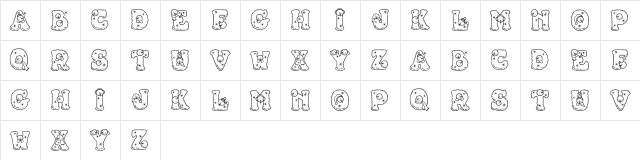
Snowpersons Regular
| Designer | Character, based on an alphabet from coloringbookfun.com |
Design Context for Snowpersons Typeface
Snowpersons is a composed and adaptable typeface that performs quietly and consistently across a wide range of design contexts.